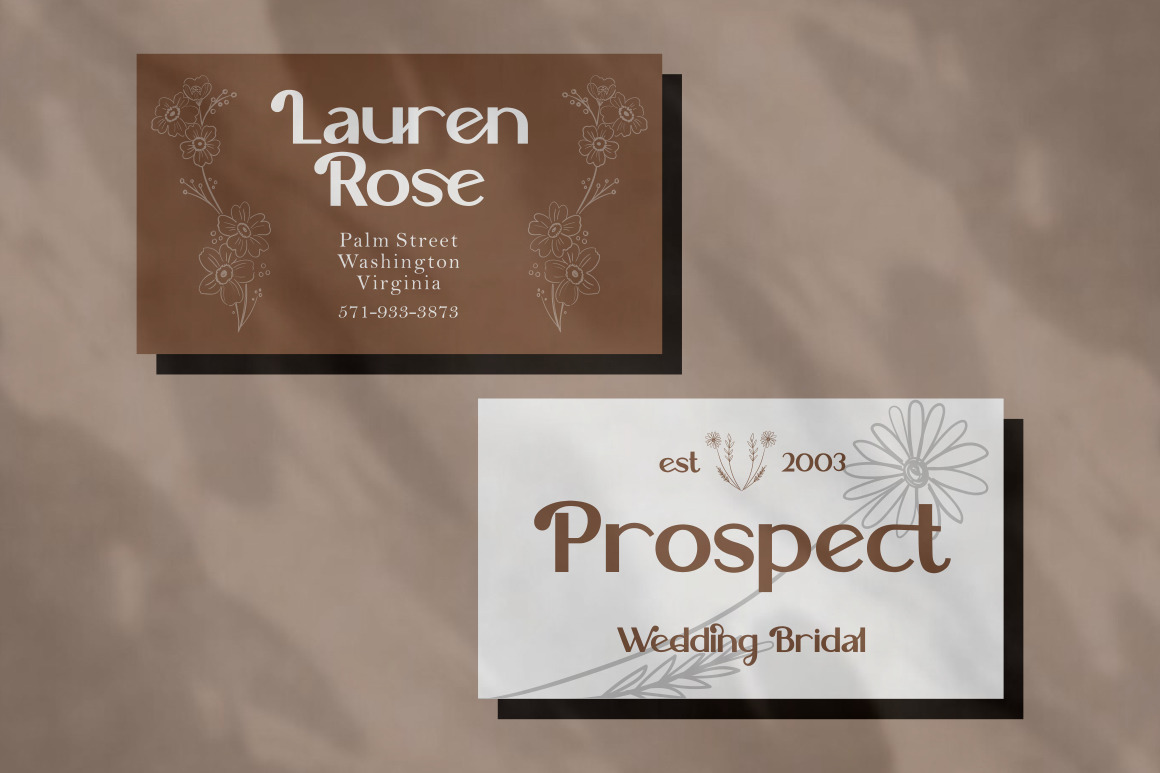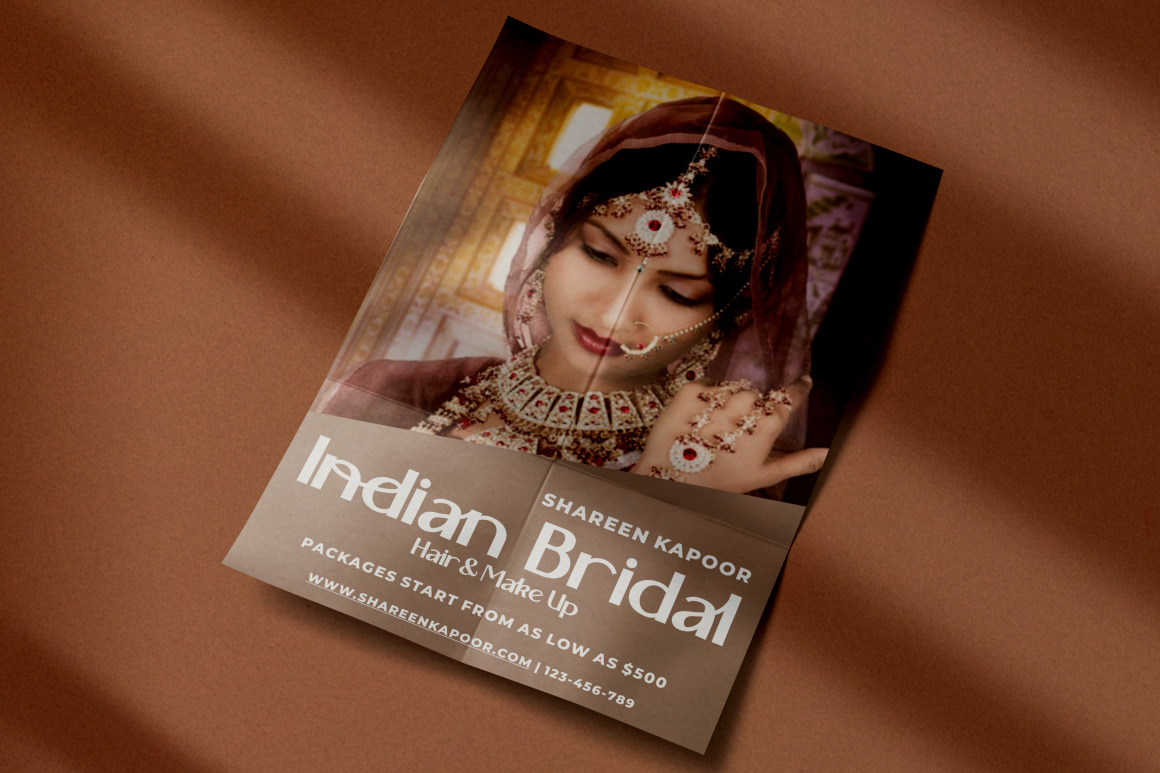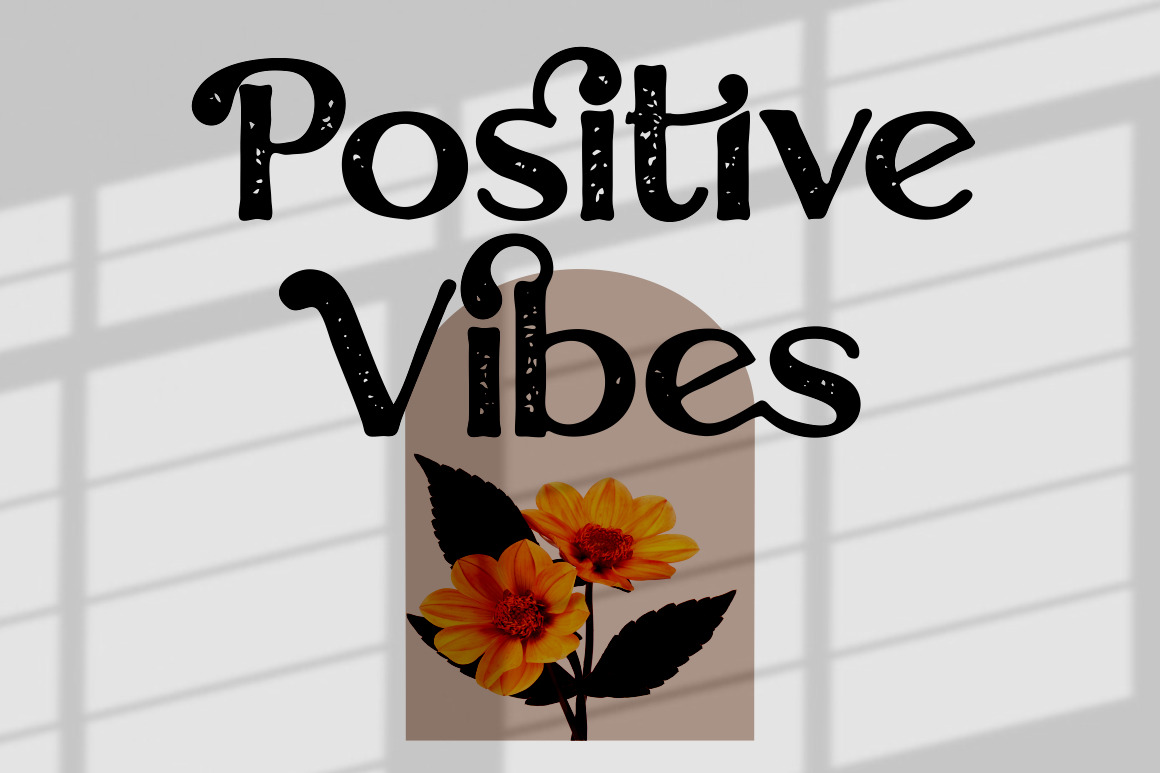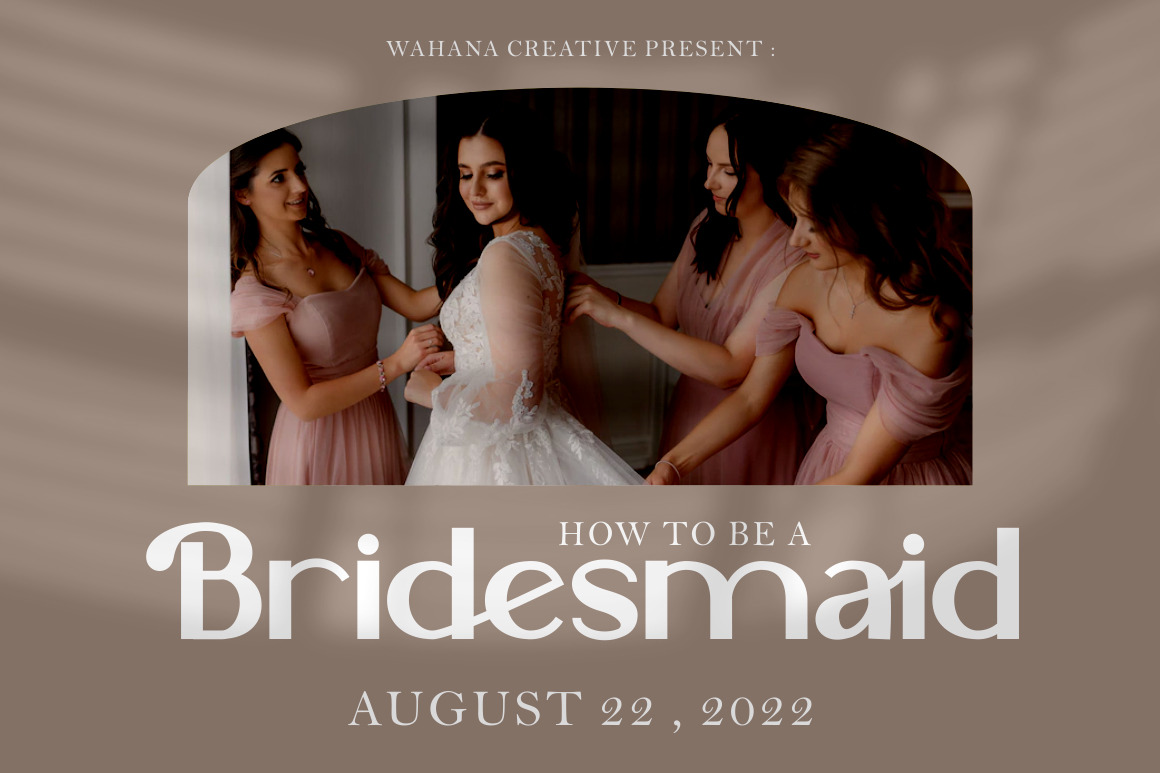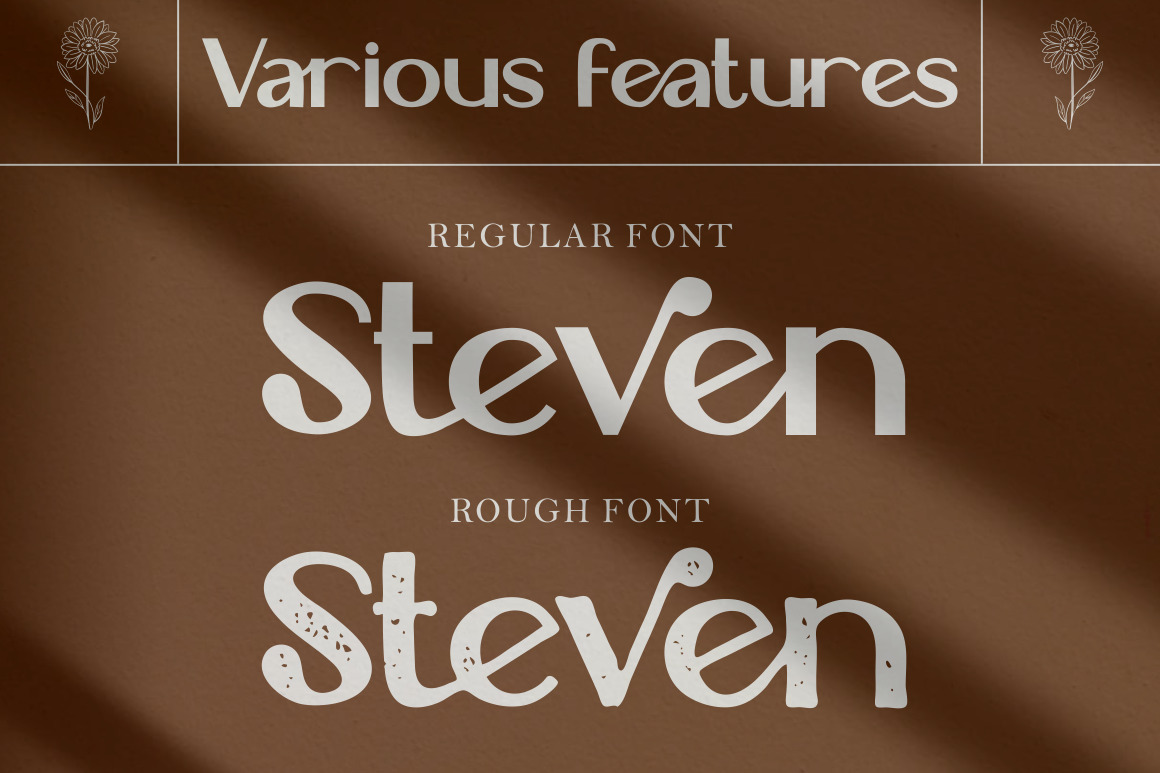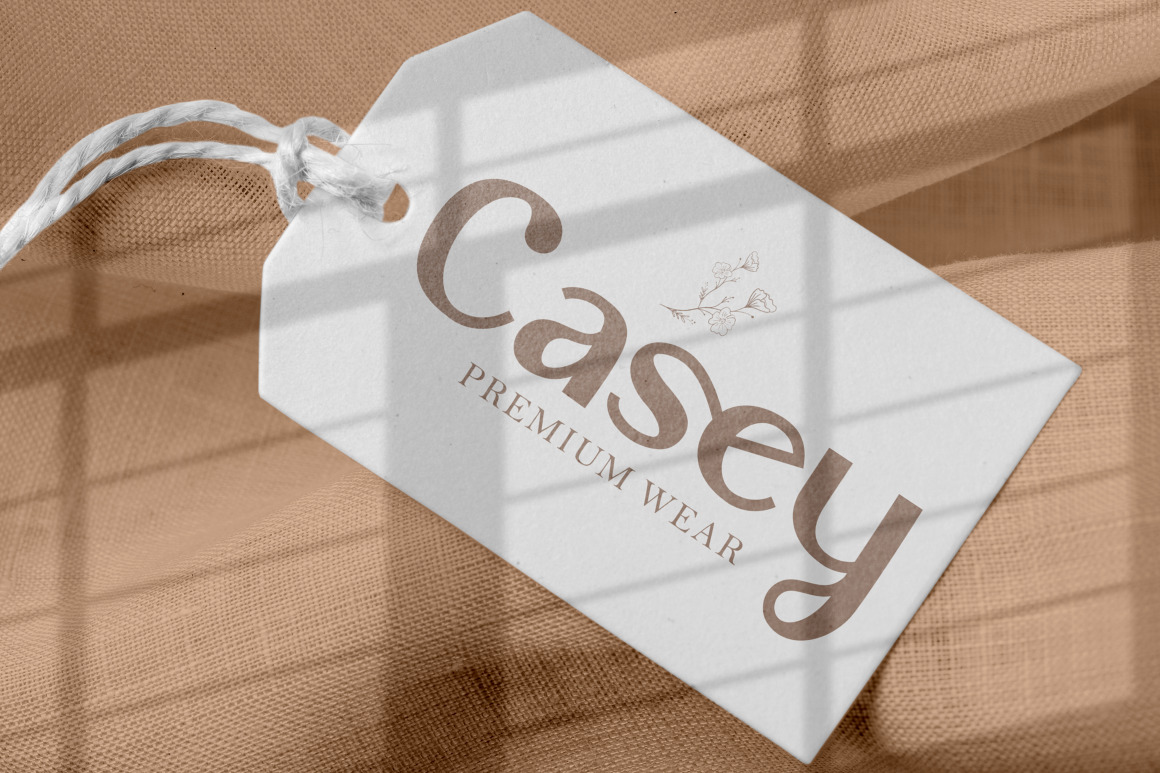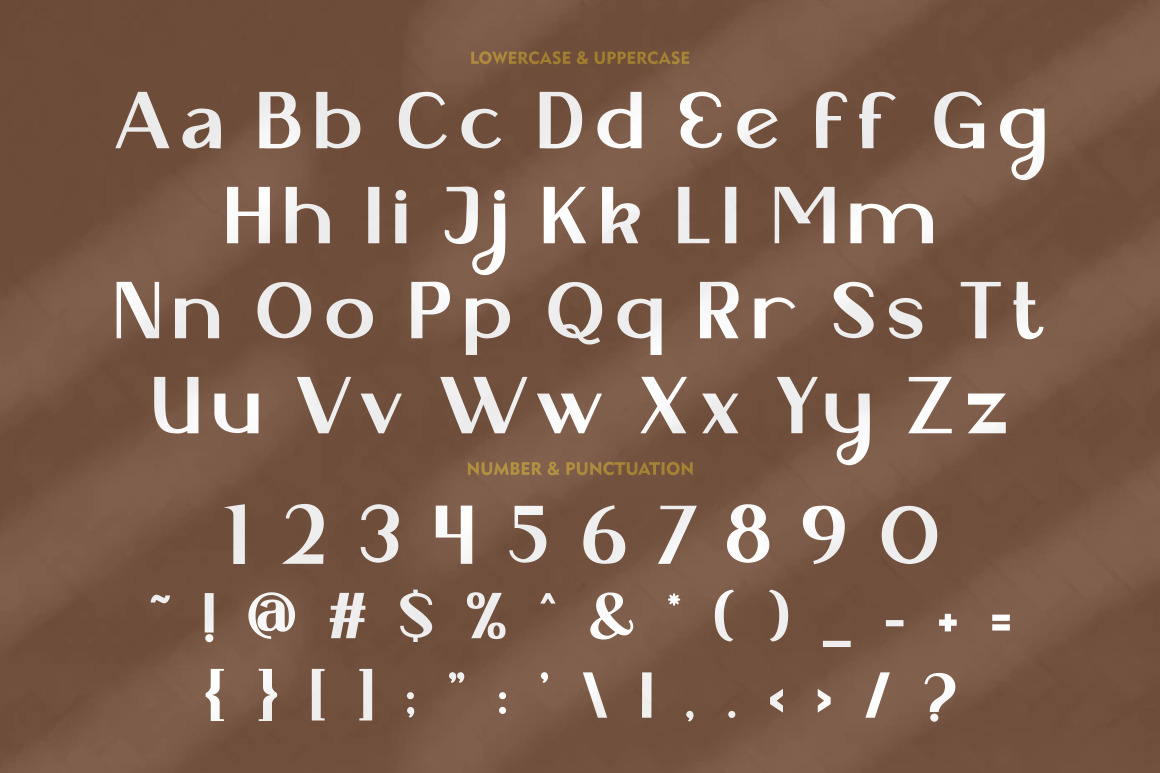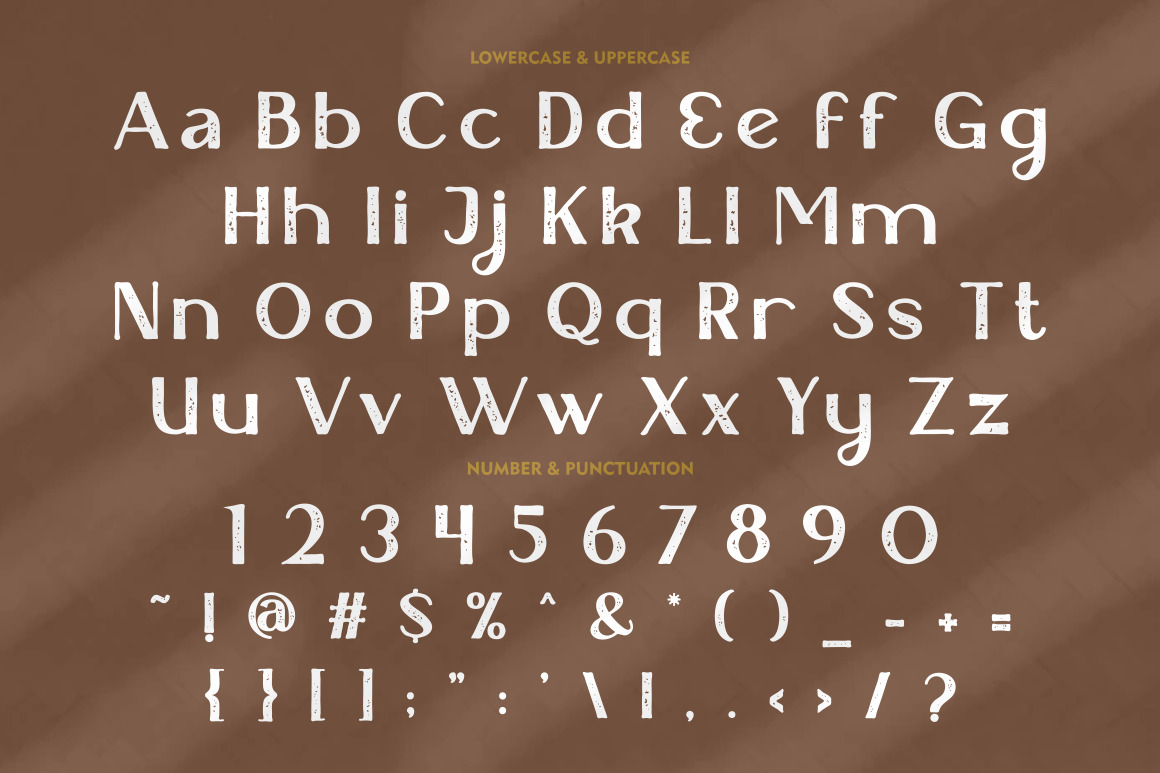
White Raven - Modern Ligature Sans Serif Font
White Raven - Modern Ligature Sans Serif Font. Inspired from unique typography and lettering in the elegant alphabet from vintage megazine and we combine with modern typography style. With modern ligature you can make great lettering for beautiful artwork. Come with open type feature ( a lot of alternates and end swash), its help you to make great lettering.
White Raven best uses for Logotype, heading,cover, poster, logos, quotes, product packaging, header, merchandise, social media & greeting cards and many more. White Raven font is also support multi language.
- Opentype (Alternates And Ligatures)
- Number, Punctuation And Symbols
- Multilanguage Support.